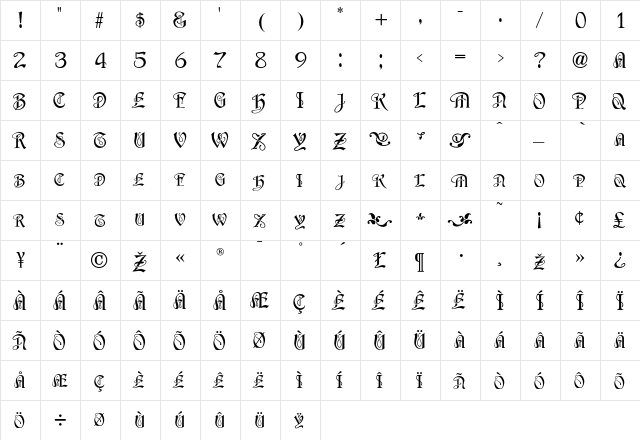
Odessa Regular
| Foundry | Digitized by Dan X. Solo. Software Dover Publications, Inc |
Design Context for Odessa Typeface
Odessa is a composed and adaptable typeface that performs quietly and consistently across a wide range of design contexts.